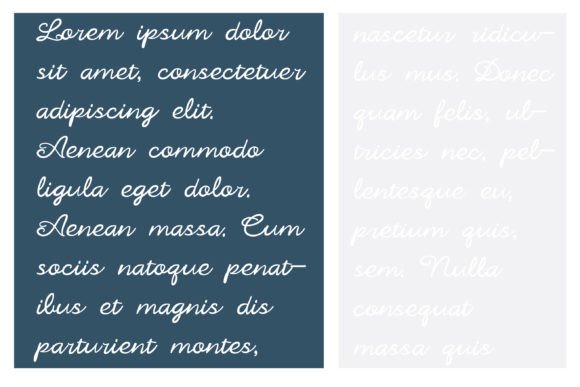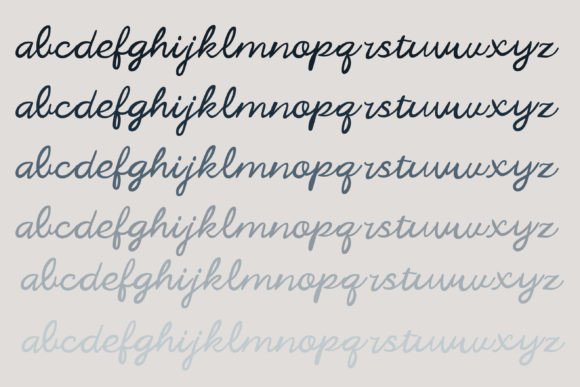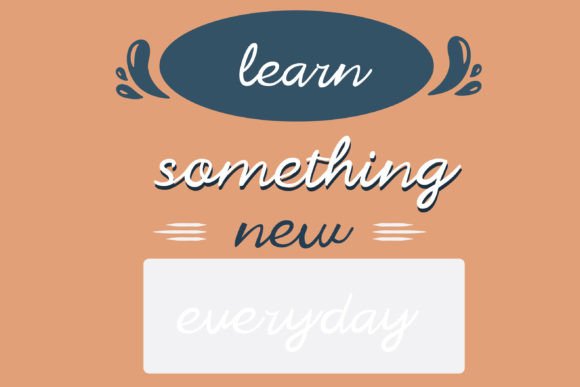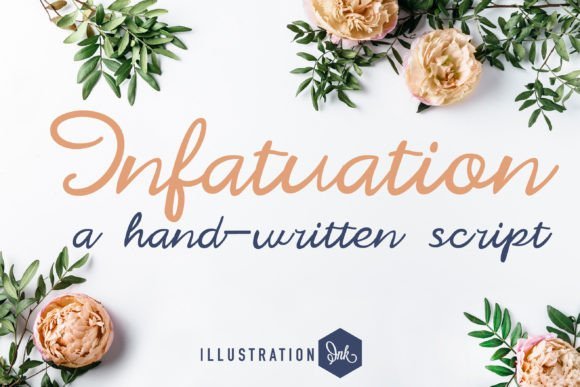
Introduction to Infatuation Font
This hand-written font is a traditional cursive with formal uppercase.
Three weights and stenciled version included A hand-crafted font is a font that is designed to look like it was written by hand.
Key Features of Infatuation Font
Why Choose Infatuation Font?
Infatuation Font offers exceptional quality and versatility, making it a valuable addition to your design toolkit. Whether you’re creating for personal projects or commercial use, Infatuation Font delivers professional results.